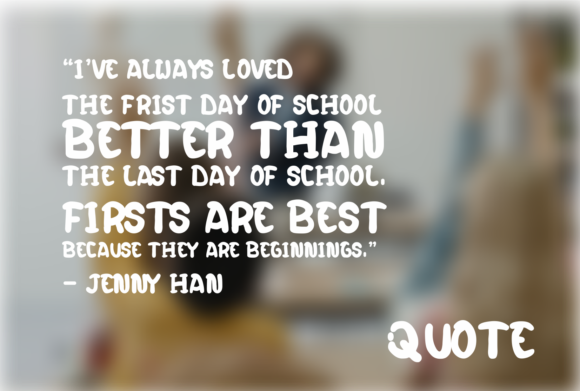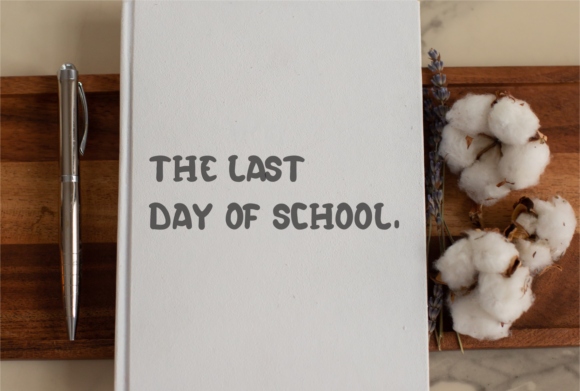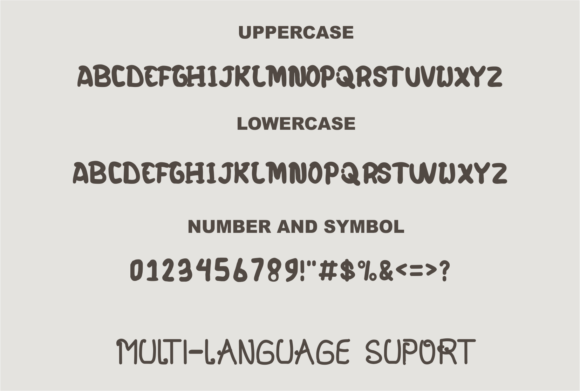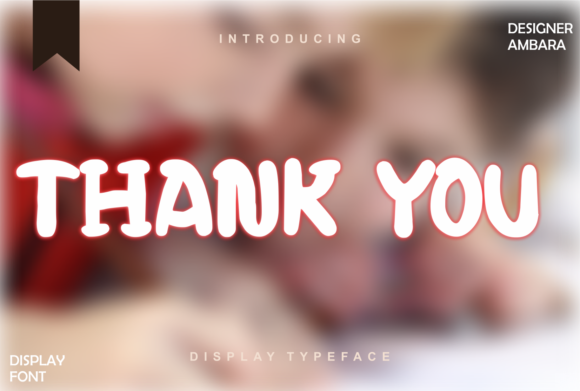
Introduction to Saga Story Font Font
Fonts play a crucial role in design, and the Saga Story Font font is a typeface that brings both character and versatility to any project. Whether you’re working on a branding project, a website, or a print design, the Saga Story Font font offers a unique style that can elevate your work.
Saga Story is a friendly and playful display font, perfect for projects related to children, and not only.
Use it for school designs, backpacks, stationery, storybooks, book covers, etc .
Key Features of Saga Story Font Font
Why Choose Saga Story Font Font?
The Saga Story Font font is more than just a typeface – it’s a design tool that helps you communicate your message with style and clarity. Its unique character set and versatile design make it suitable for a wide range of applications, from elegant invitations to bold headlines.
With its carefully crafted letterforms and balanced proportions, the Saga Story Font font ensures readability and visual appeal across all mediums.
What makes Saga Story Font font special?
The Saga Story Font font stands out with its unique design, exceptional readability, and versatility across various design applications.